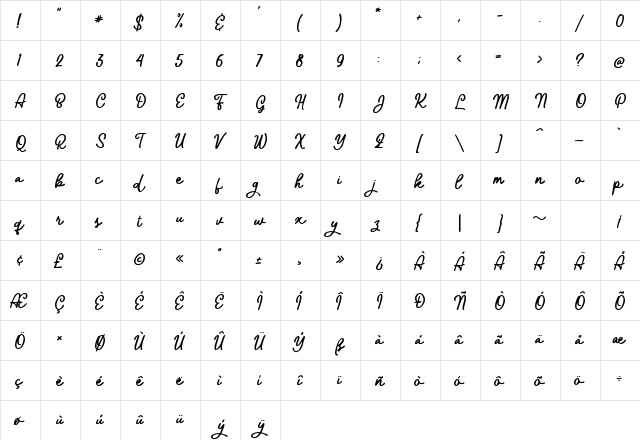
Azzura Lineweight Regular
| Foundry | Colllab Studio |
| Designer | Colllab Studio |
Design Context for Azzura Lineweight Typeface
Azzura Lineweight takes a measured approach to typography — its balanced proportions and neutral character make it a reliable workhorse for both digital and print work.